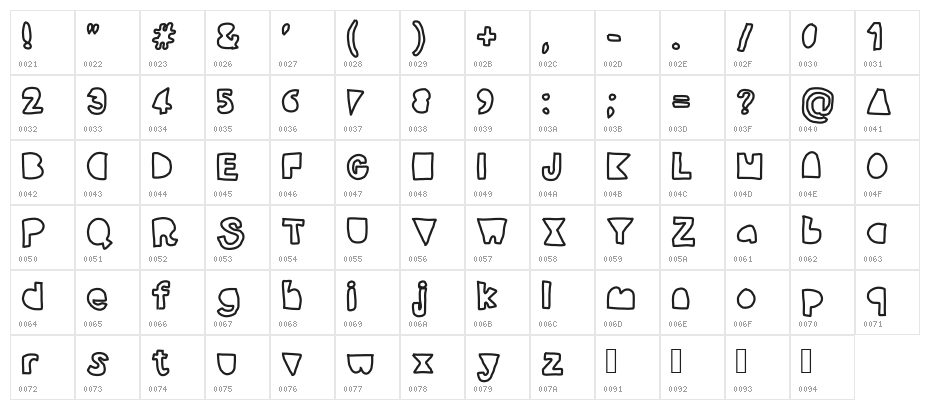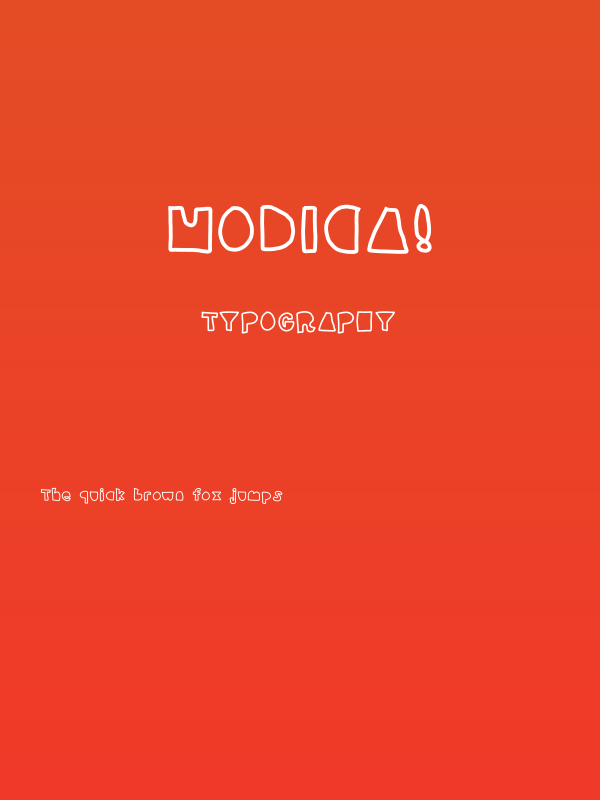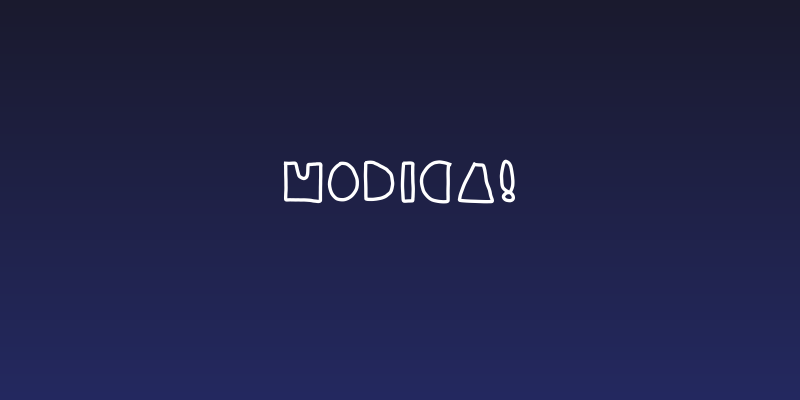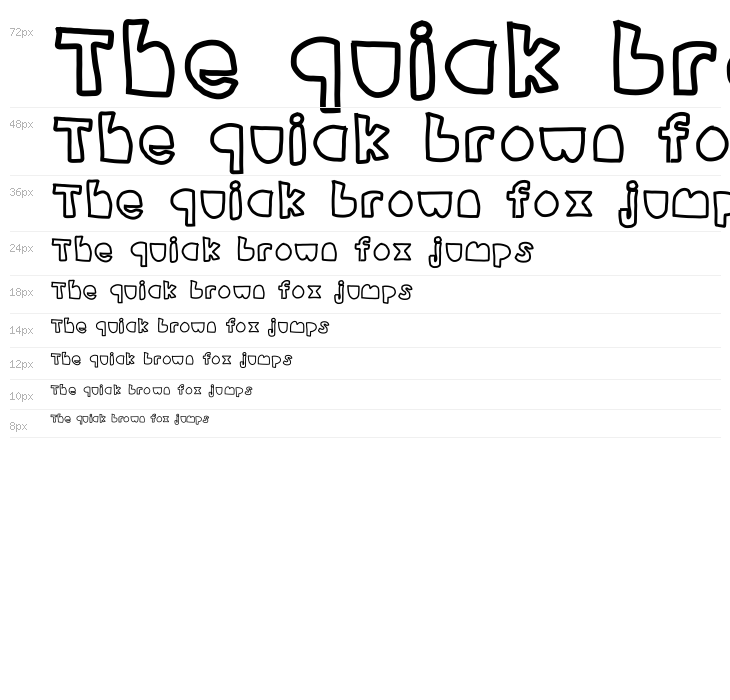
modica! Font
modica! Description
This playful and quirky font features bold, hand-drawn characters with a unique, irregular outline that gives it a whimsical and informal appearance. Each letter is distinct, with varying line thicknesses and a slightly uneven baseline, adding to its charm. The uppercase and lowercase letters maintain a consistent style, while the numbers and special characters complement the overall design. This font's playful nature makes it ideal for projects that require a fun and engaging look, such as children's books, party invitations, or creative branding materials.
| Use Case | Headlines, Logos, Creative projects |
| Proposed Projects | Ideal for children's books, party invitations, creative branding, and playful designs. |